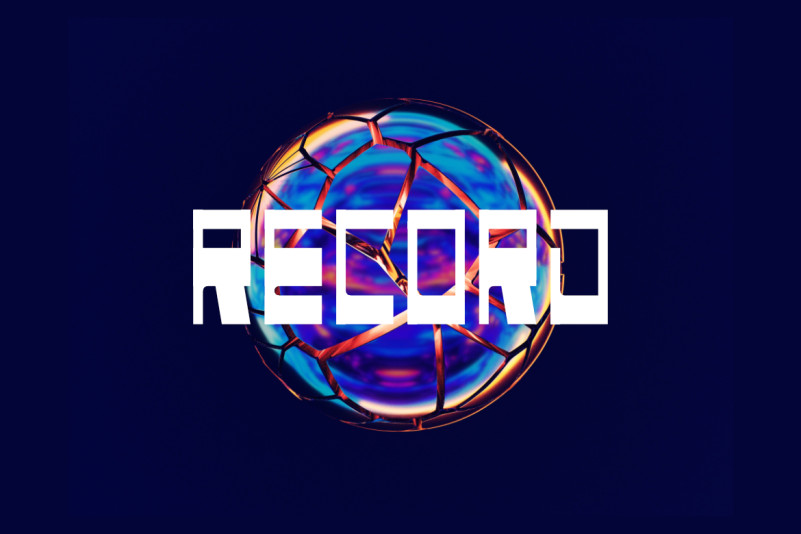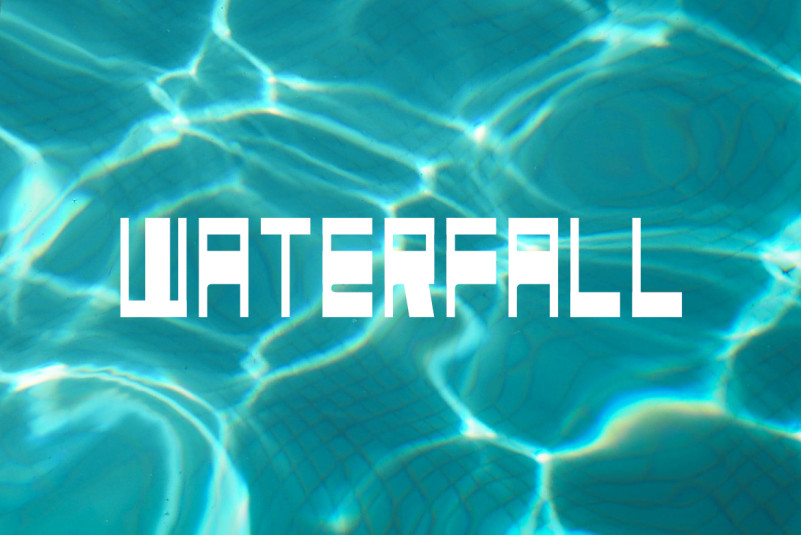
Faqro Pro Font
Faqro Pro Display Font, It can easily be matched to an incredibly large set of projects, so add it to your creative ideas and notice how it makes them stand out!
faqro is simple with joy character